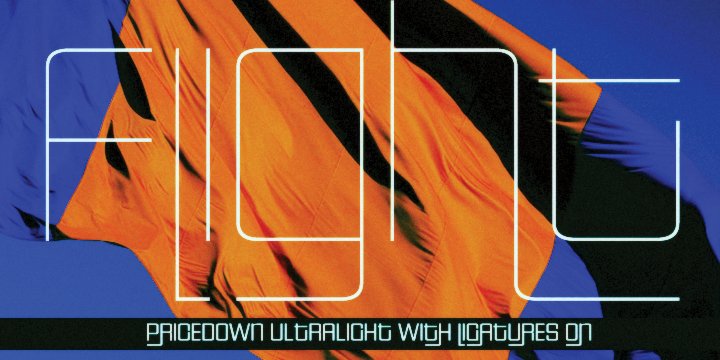
Pricedown™
from Larabie
Designed by: Ray Larabie
Designed when: 1998
Pricedown
Pricedown, originally a single weight display font, released in the late 1990s has been rebuilt, expanded and improved.
In OpenType savvy applications, funky swashes will automatically appear. Swashes match the width of the adjacent letters. Don't want swashes? Turn off the OpenType ligatures feature and they're gone. Want strange left swashes? Turn on the OpenType swash feature. Turn on both swashes and ligatures for complete swash madness. Turn on caps-lock for some interesting variations too, even without swashes.
Pricedown was inspired by, but is not the same as a 1970s display font called Pinto Flare.